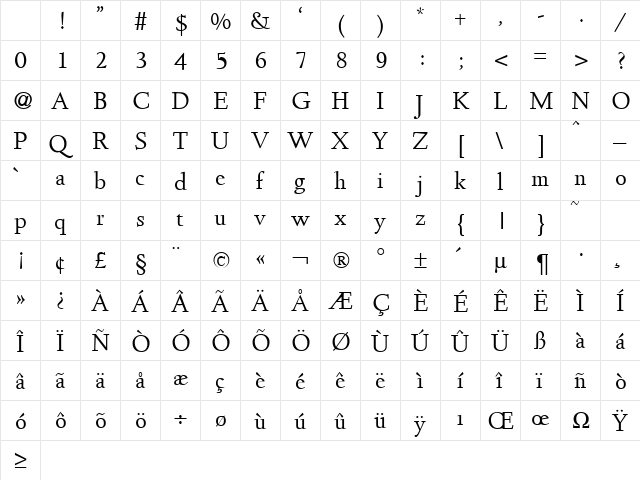
Complete Deemster Regular glyph index. Displaying only characters natively supported by Deemster Regular font.
Deemster is a composed and adaptable typeface that performs quietly and consistently across a wide range of design contexts.